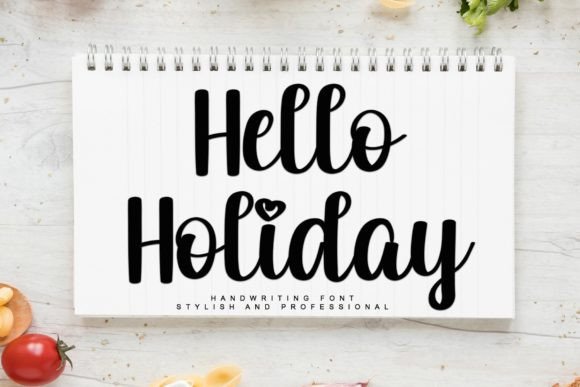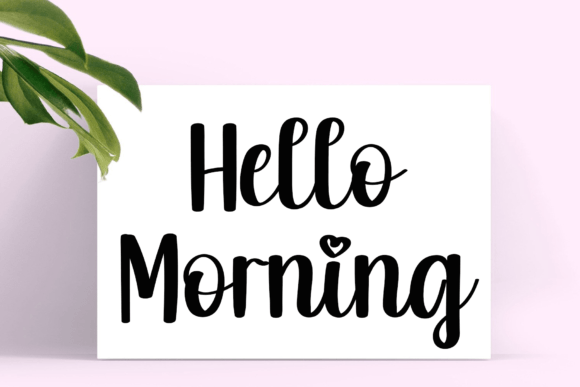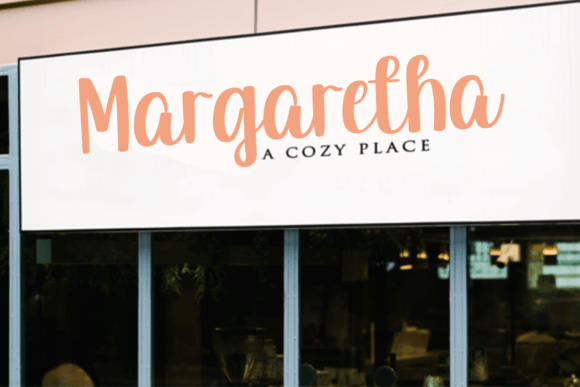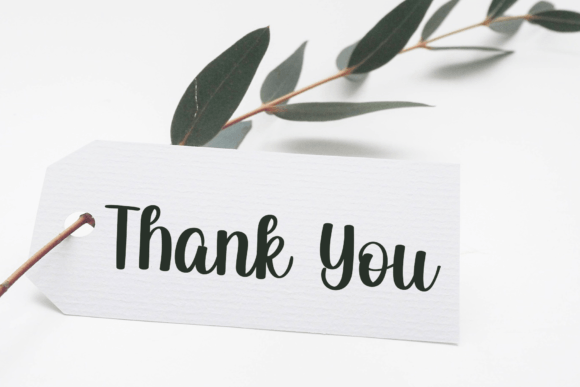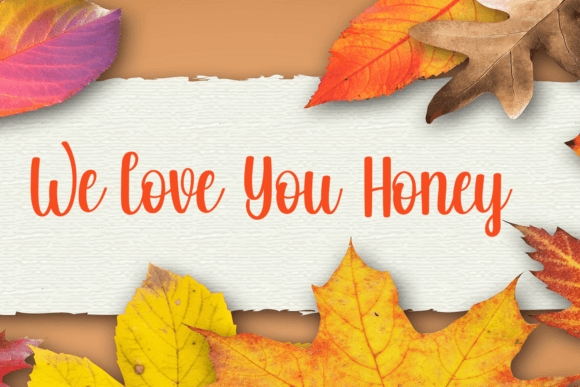
Hello Holiday Font
“Hello Holiday” is a stylish handwritten font that emanates a contemporary atmosphere while maintaining impeccable form, drawing inspiration from timeless classic calligraphy. Crafted with balance and variety in mind, this font is designed to elevate the aesthetic appeal of your creative projects.
The font’s contemporary vibe makes it a versatile choice for a wide range of design applications. Whether you’re working on branding, invitations, labels, posters, or other creative endeavors, “Hello Holiday” brings a balanced and varied aesthetic that contributes to its adaptability.
With its handwritten style, “Hello Holiday” adds a personalized and authentic touch to your designs, establishing a connection with the audience. The influence of timeless classic calligraphy ensures a sense of sophistication, making it well-suited for projects that demand a touch of elegance and refinement.
Integrate “Hello Holiday” into your design toolkit to enhance the beauty of your creative projects. Whether you’re crafting logos, branding materials, or promotional content, this font provides a stylish option that can elevate the overall visual impact of your work.
More than just a font, “Hello Holiday” serves as a design tool that brings a contemporary and timeless aesthetic to your projects. Explore the possibilities with “Hello Holiday” and let its stylish handwritten charm enhance the beauty of your next design venture.